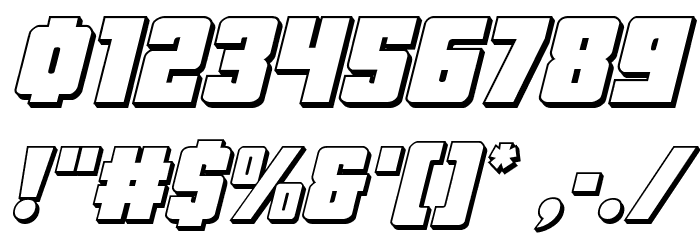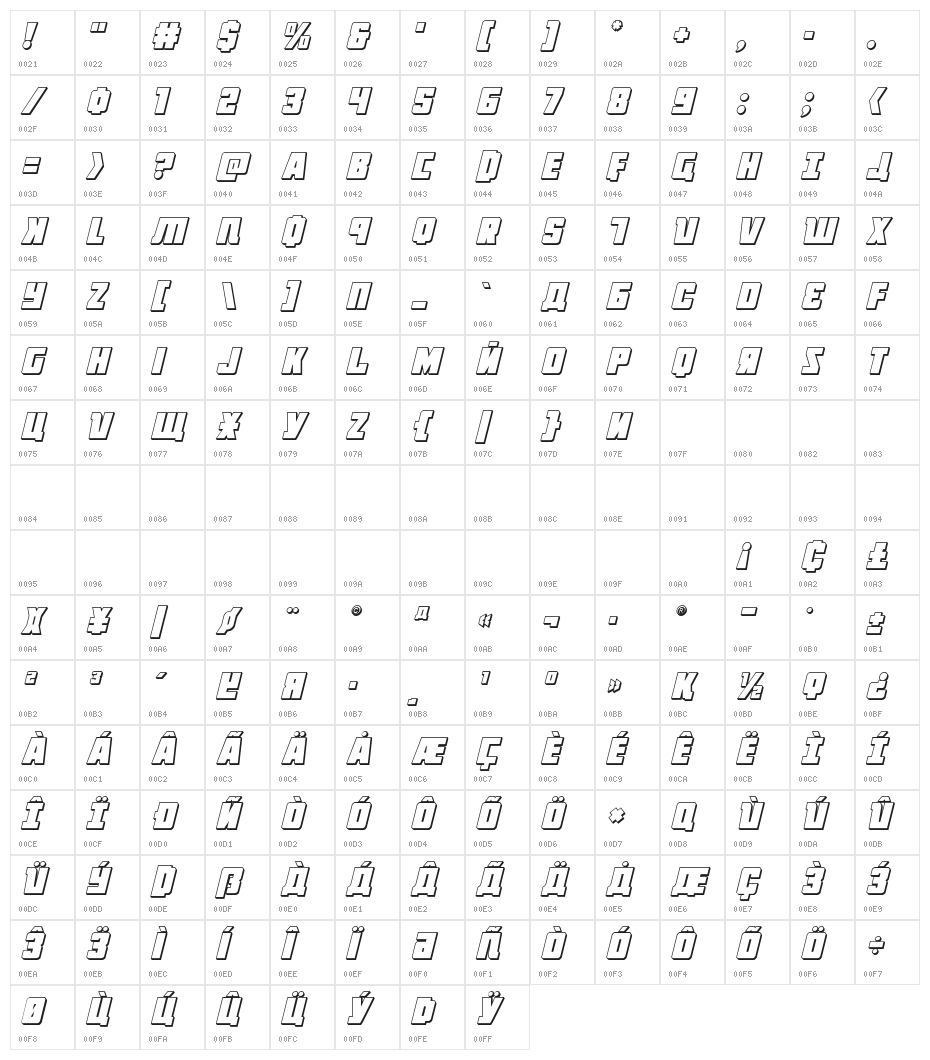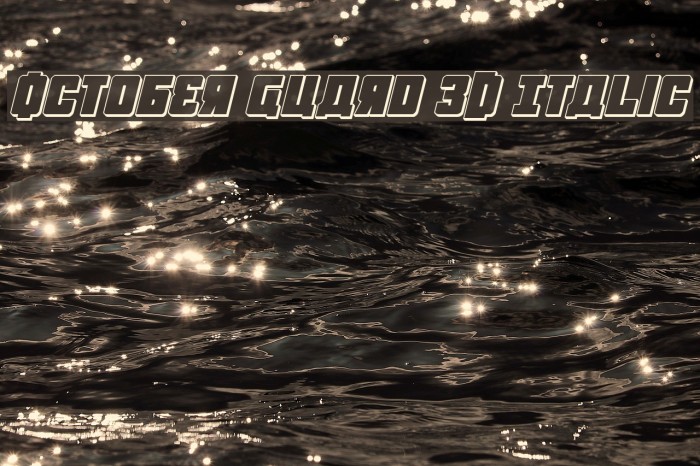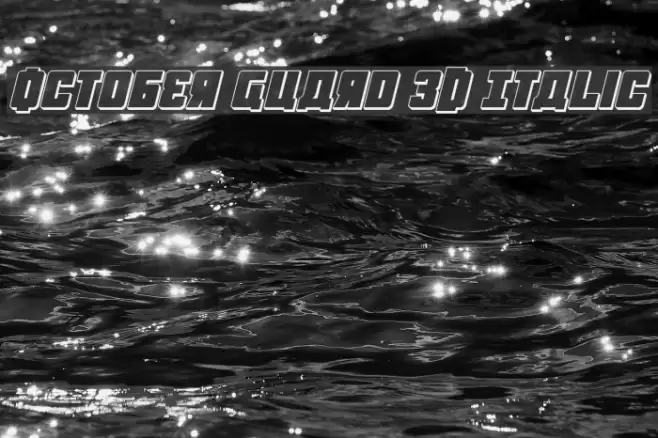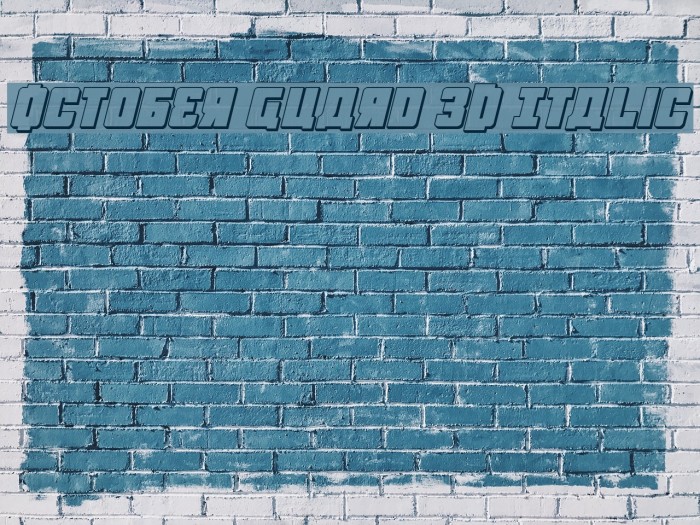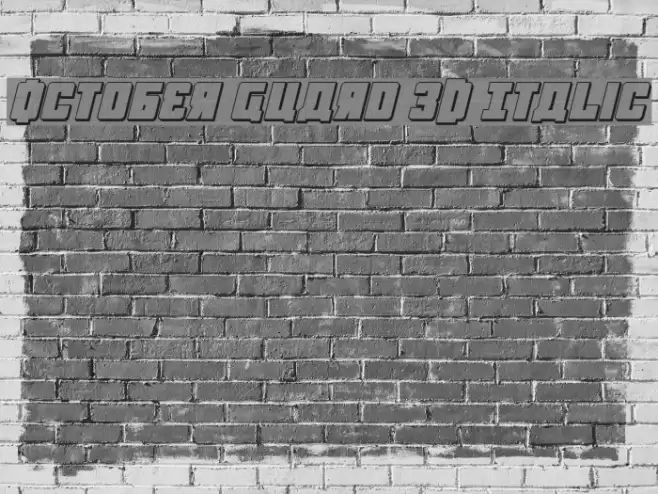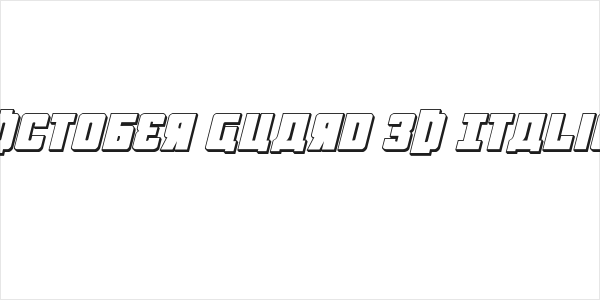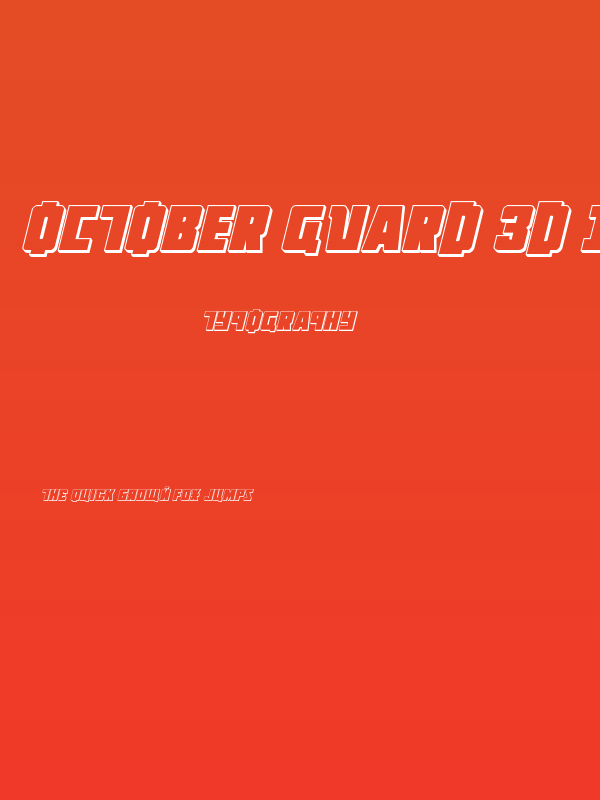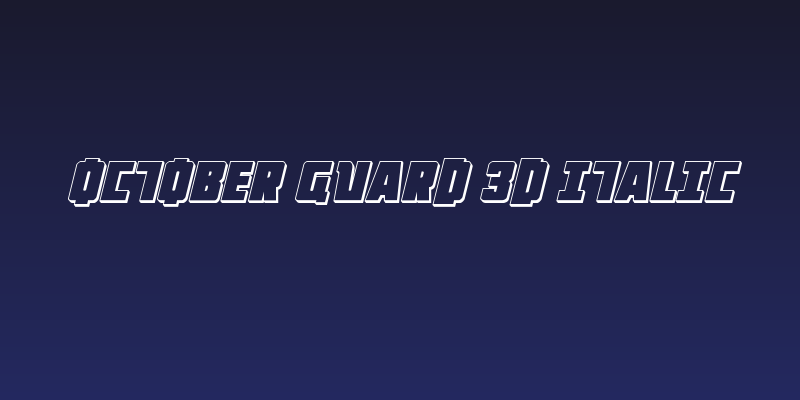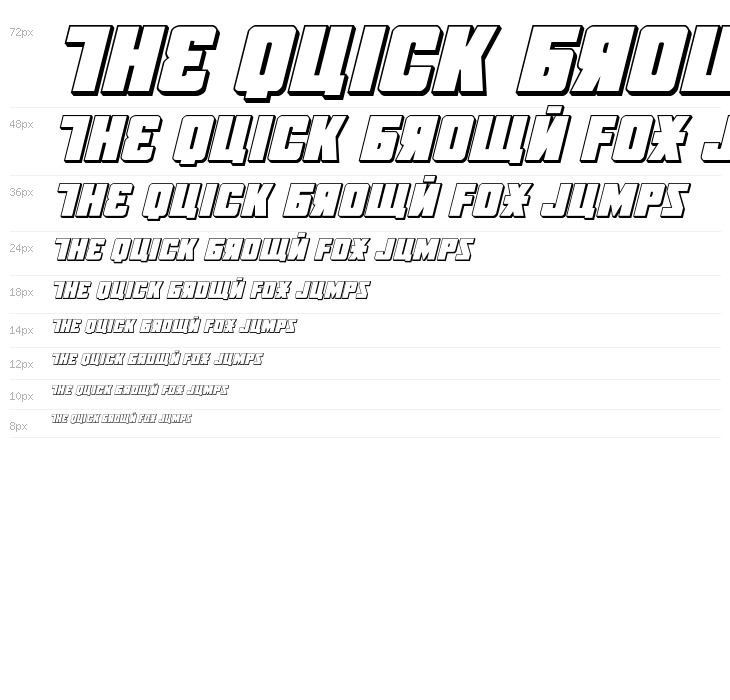
October Guard 3D Italic Font
October Guard 3D Italic Description
This font features a bold, three-dimensional style with a strong italic slant, giving it a dynamic and impactful appearance. The characters are outlined, creating a shadow effect that enhances the 3D illusion. The design is geometric and blocky, with sharp angles and clean lines that contribute to its modern and futuristic feel. The uppercase and lowercase letters maintain a consistent style, while the numerals and special characters are designed to match the bold and assertive aesthetic. This font is ideal for projects that require a striking and attention-grabbing typeface.